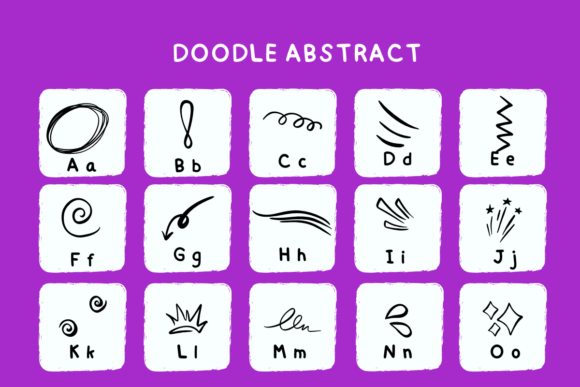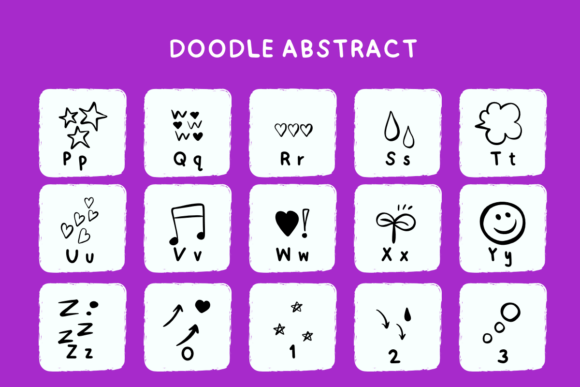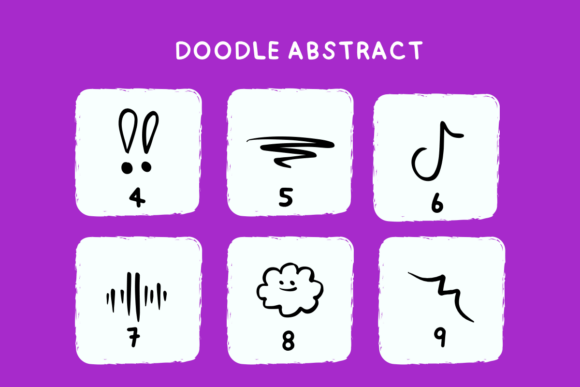
Introduction to Doodle Abstract Font
Discover the whimsical flare of the Doodle Abstract, a dingbats font that bursts with sketch-style charm.
Unleash a world of creativity with this versatile font; perfect for stepping up your invitations, DIY projects, crafts, or even decorations It’s not just a font, it’s a creative asset that can effortlessly personify your logos and manifest a plethora of imaginative ideas.
Key Features of Doodle Abstract Font
Why Choose Doodle Abstract Font?
Doodle Abstract Font offers exceptional quality and versatility, making it a valuable addition to your design toolkit. Whether you’re creating for personal projects or commercial use, Doodle Abstract Font delivers professional results.